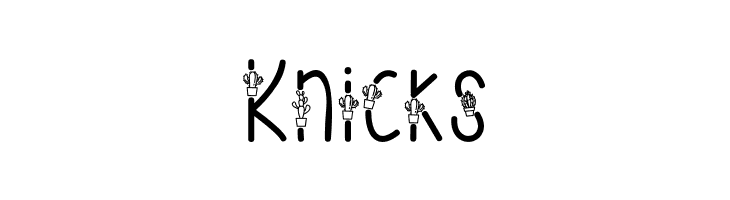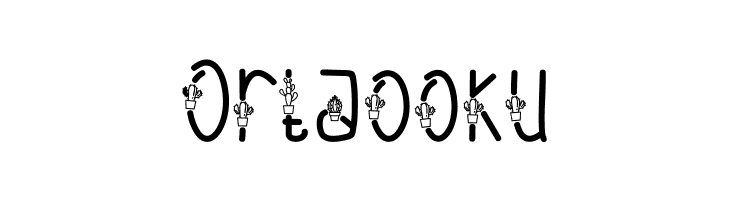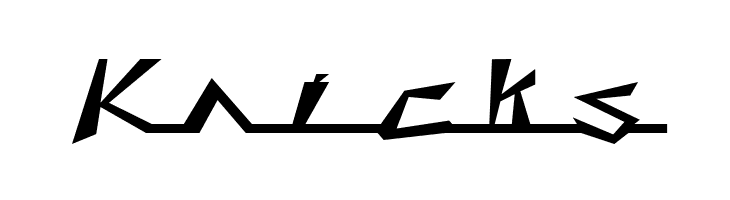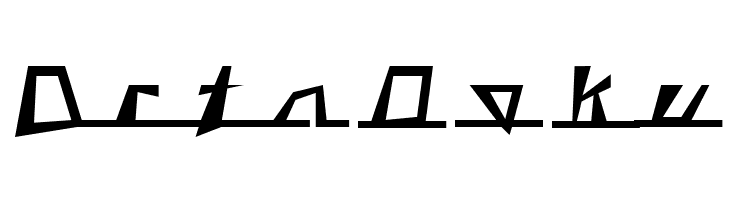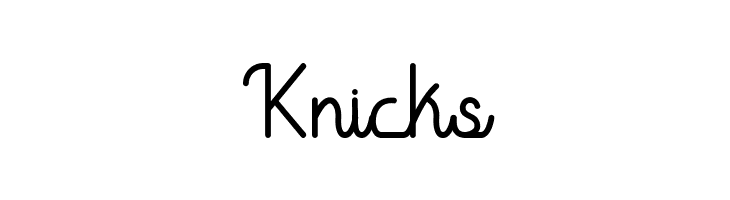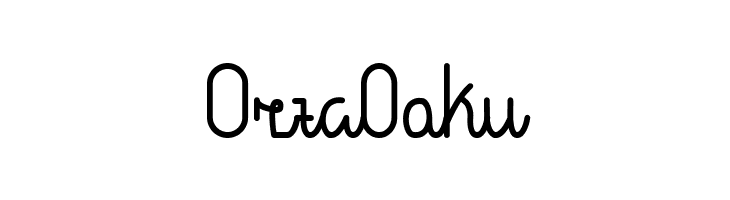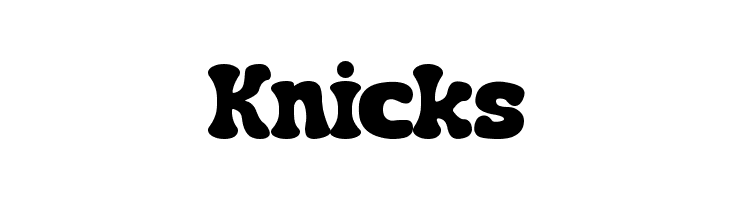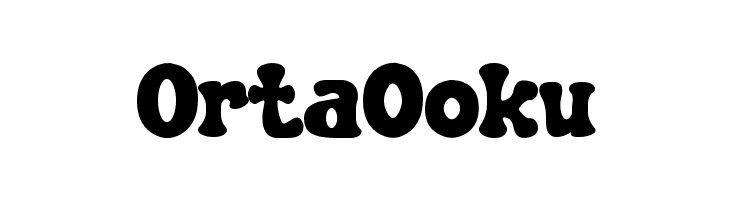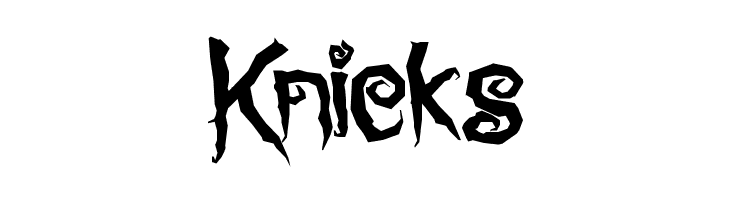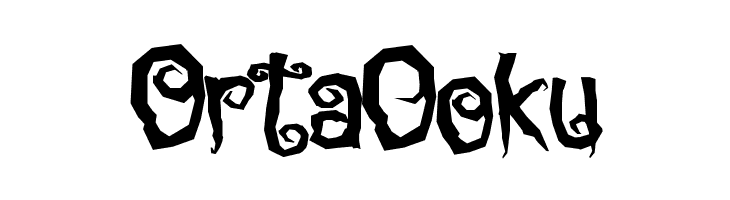
A bold, textured font with a hand-drawn, artistic style.
A bold, textured font with a hand-drawn, rustic appearance.
A bold, playful font with rounded strokes and a whimsical, friendly appearance.
A bold, spiky decorative font with a playful cactus-inspired design.
A playful, cactus-themed decorative font with bold, rounded characters.
A playful font with cactus illustrations integrated into each character, offering a whimsical and decorative style.
A whimsical, decorative font with jagged, irregular strokes and a mystical appearance.
A modern, playful font with rounded, monoline strokes and a handwritten touch.
A bold, angular font with a futuristic and edgy design.